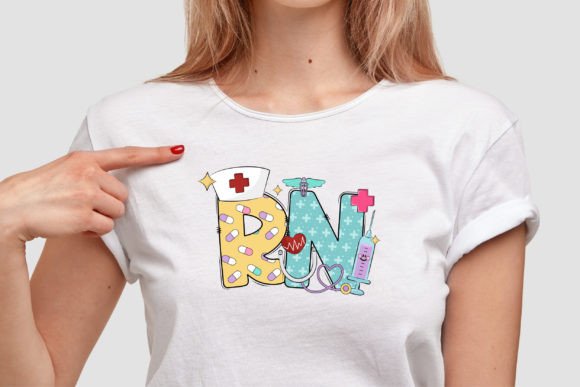
Nurse Alphabet Font
Introducing “Nurse Alphabet” a charming font designed to celebrate the life of nurses. With its adorable design, this font captures the essence of the nursing profession in a cute and playful way. “Nurse Alphabet” offers 4 font styles to choose from, ensuring versatility in your creative projects. Additionally, you’ll receive 30 bonus matching clip art pieces, allowing you to further enhance your designs with nurse-themed elements. Perfect for custom DIY craft projects, custom names, sublimations, posters, and more, “Nurse Alphabet” is the ideal choice for showcasing your appreciation for nurses in a creative and unique manner.